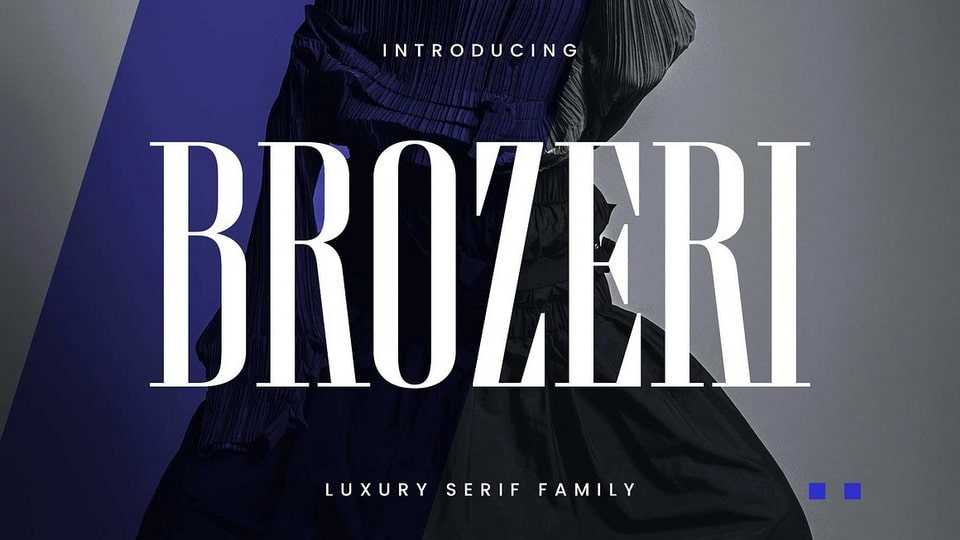
Download Brozeri font, a condensed serif typeface with bold contrast and striking contours. Its firm, eye-catching serifs bring a sense of elegance and authority to any design.